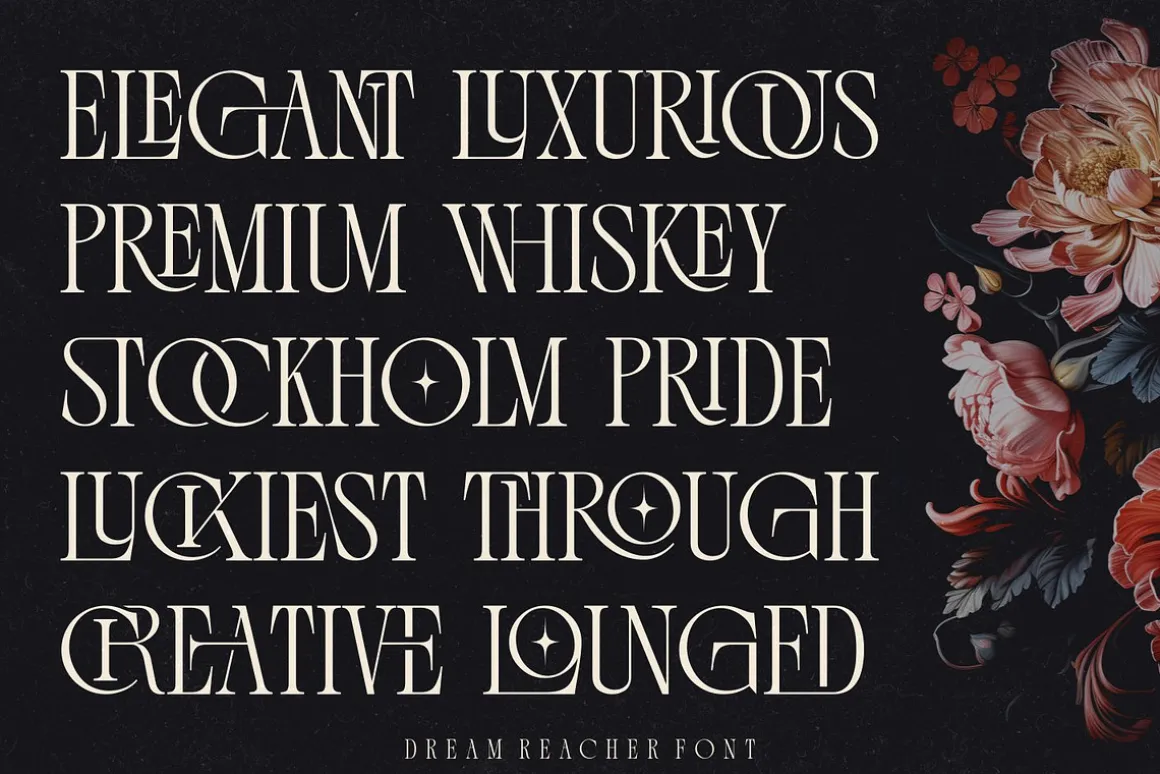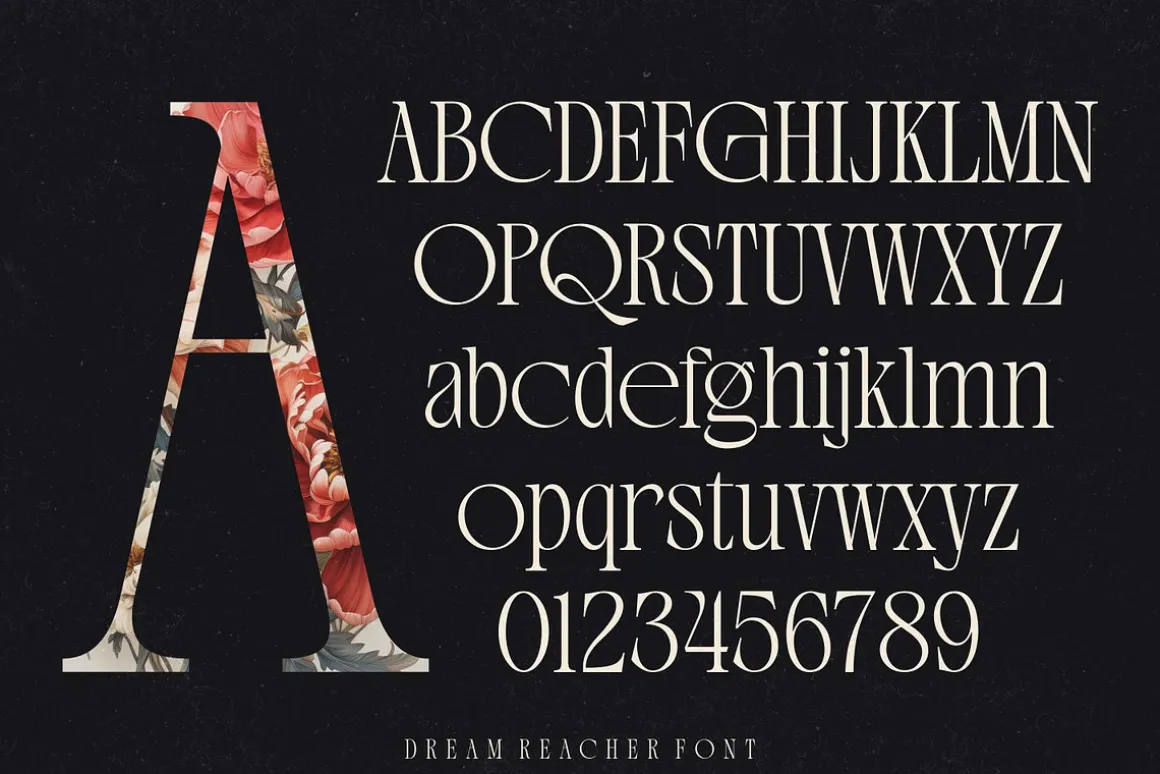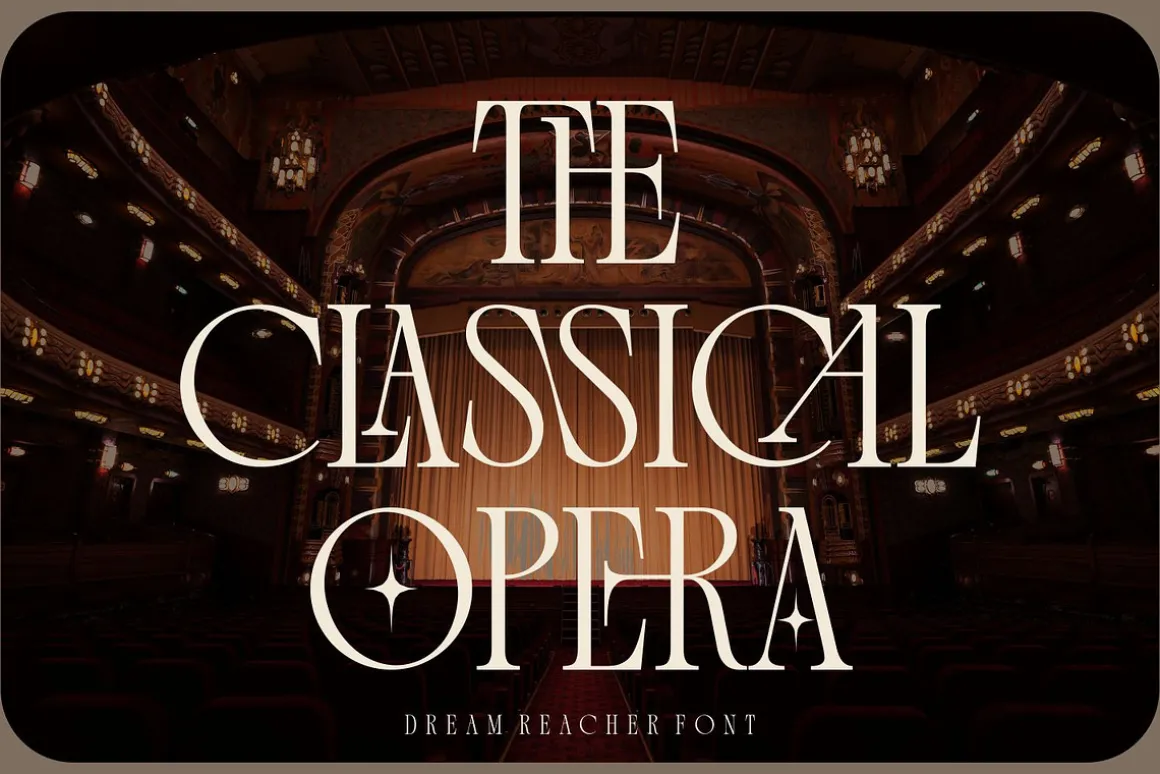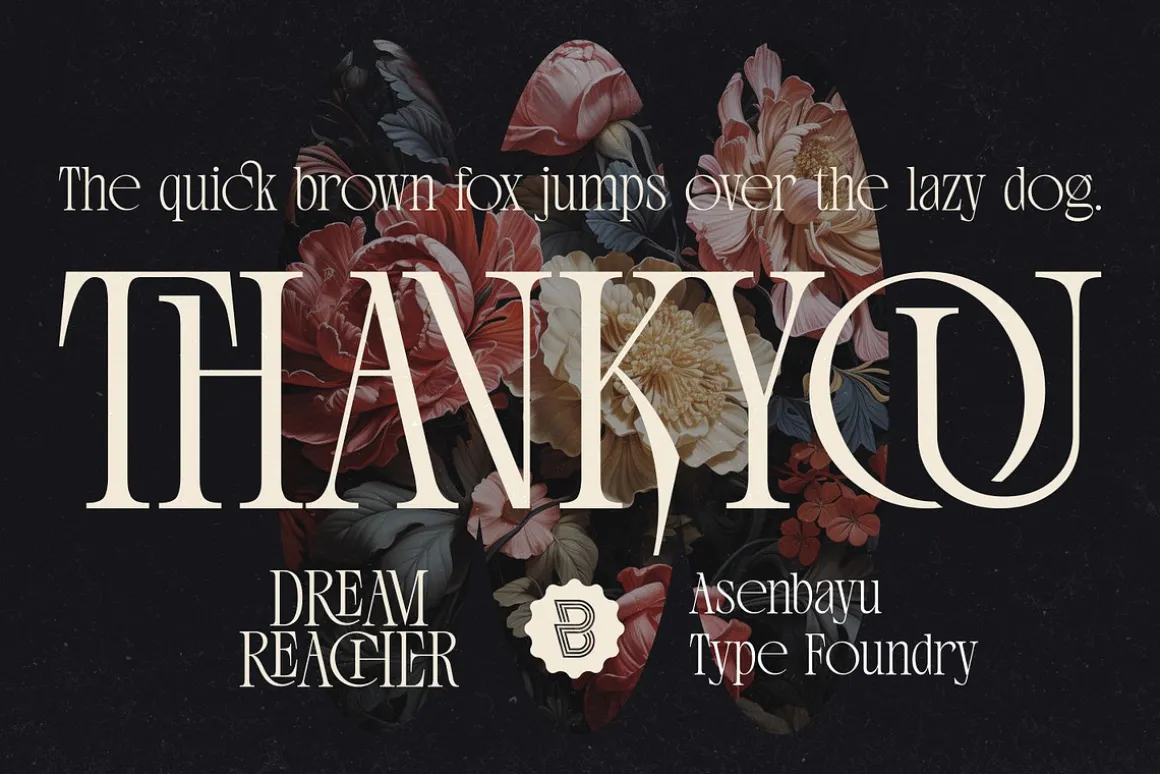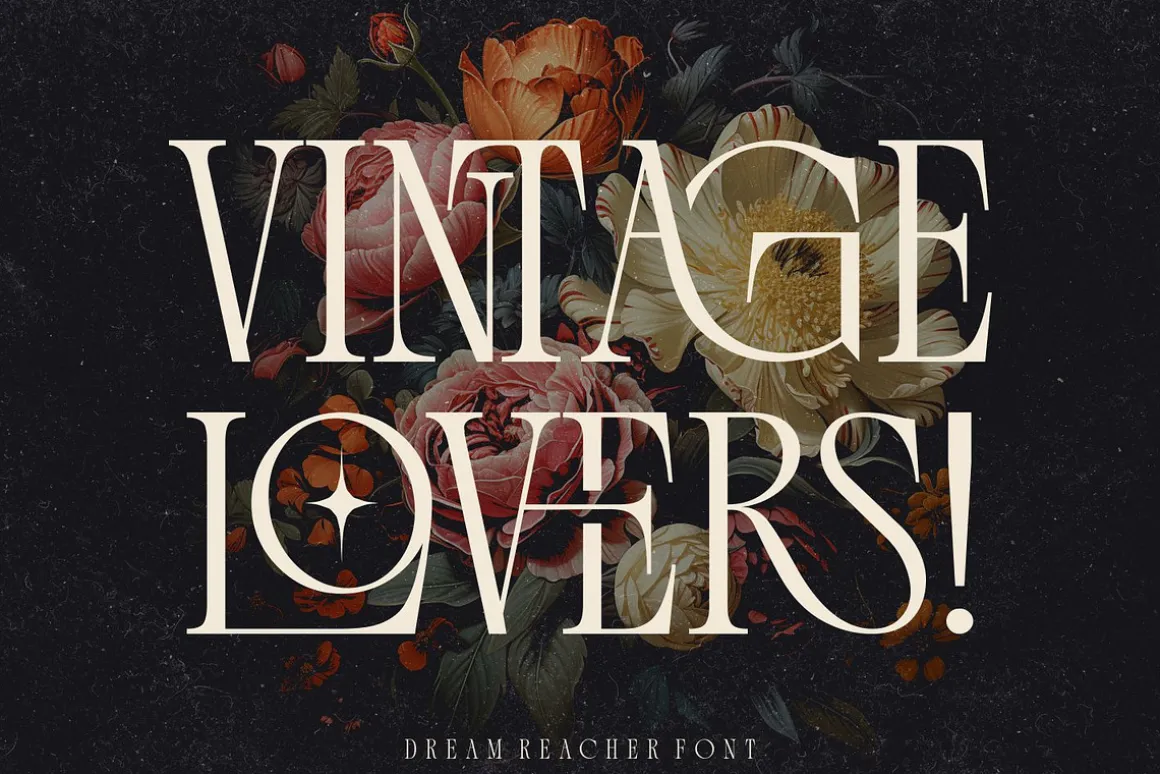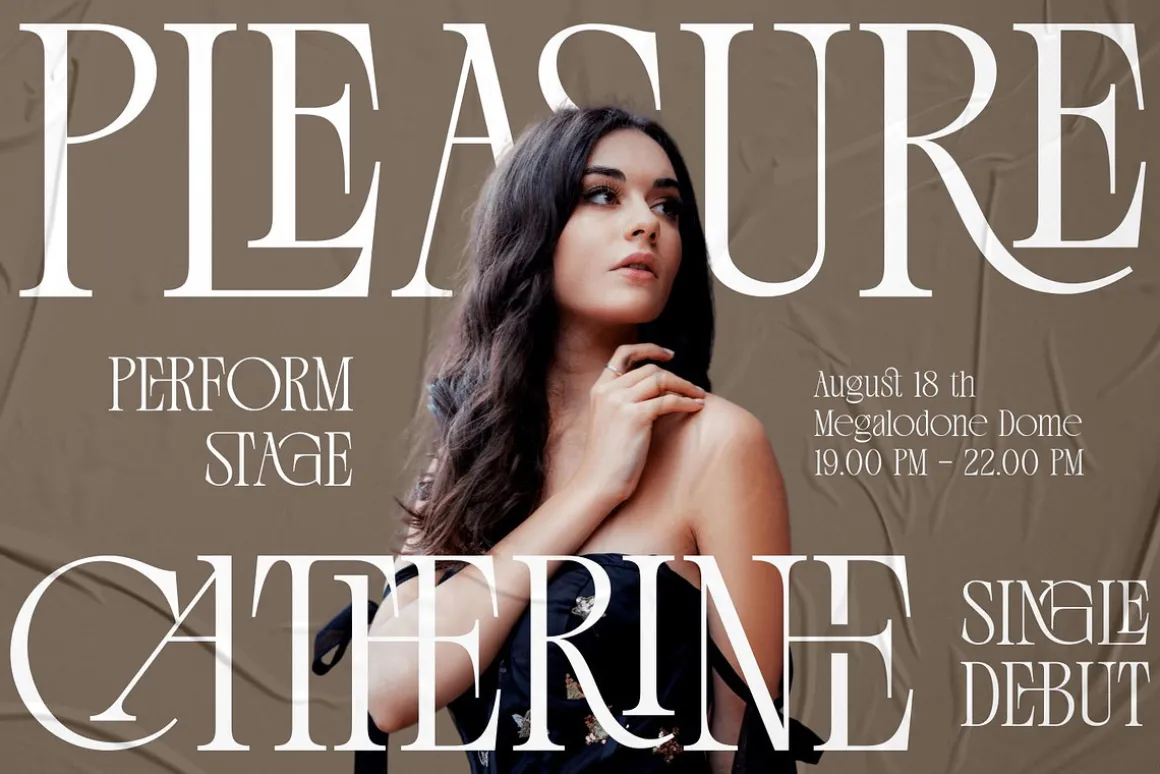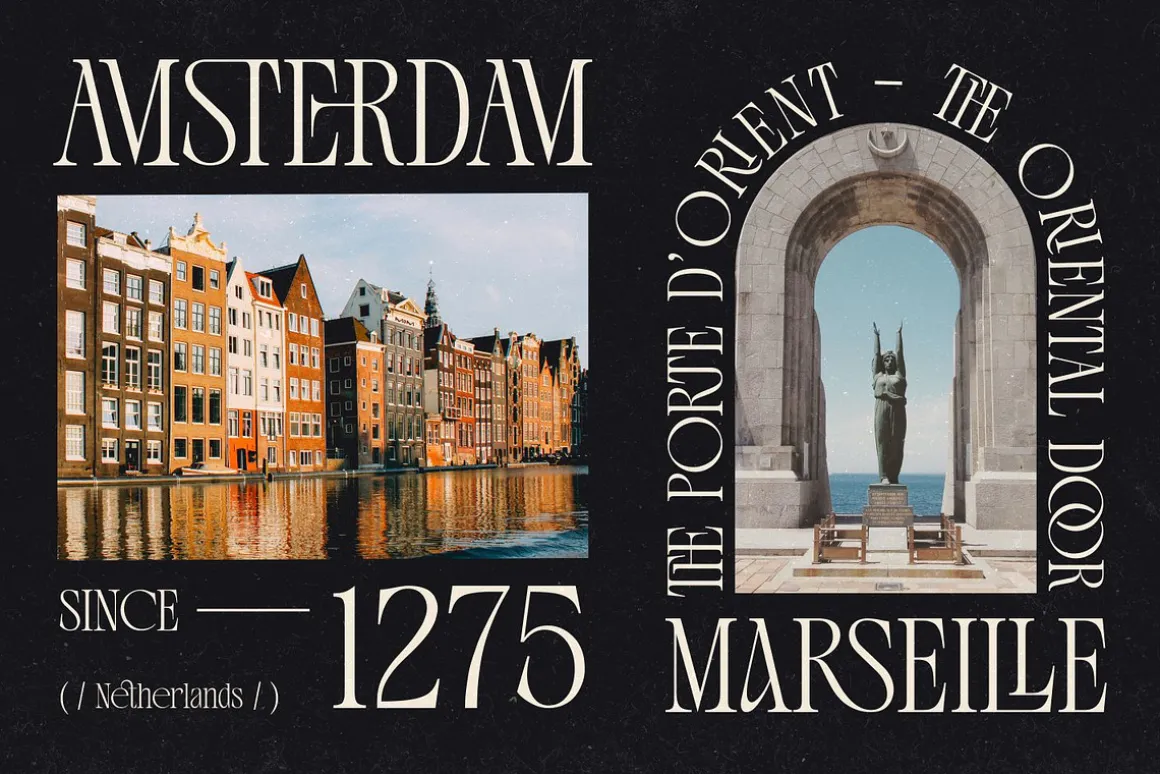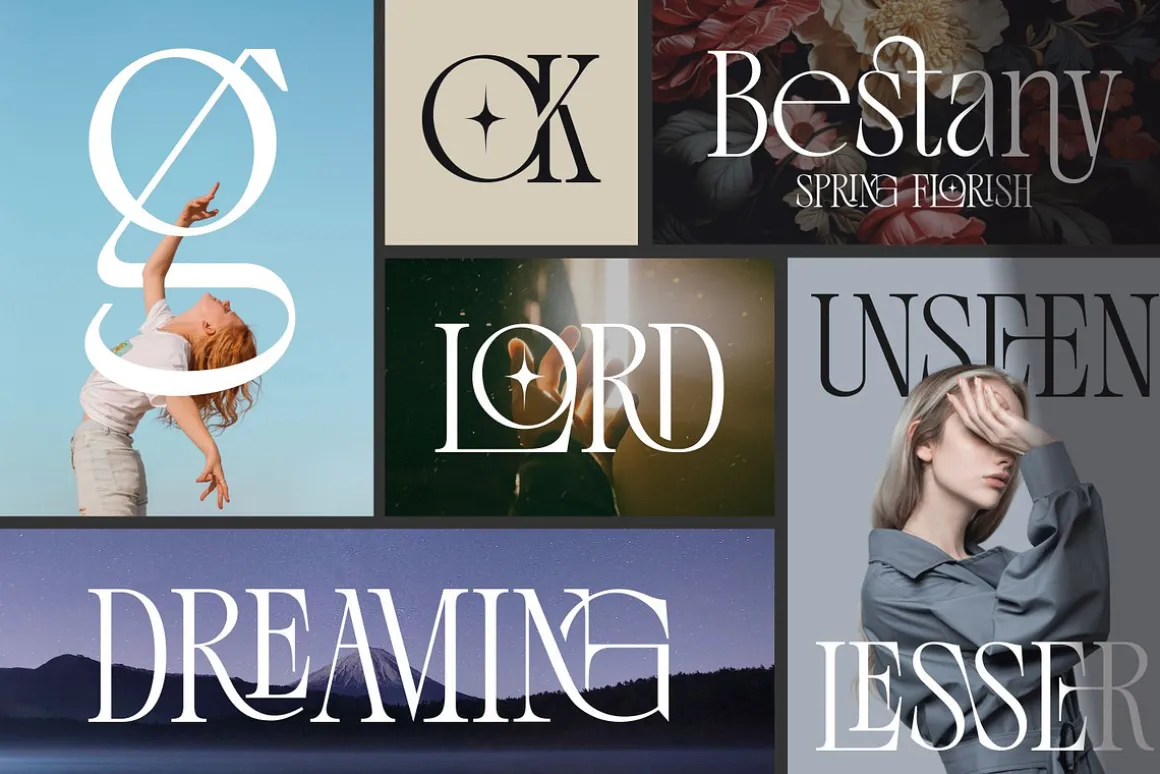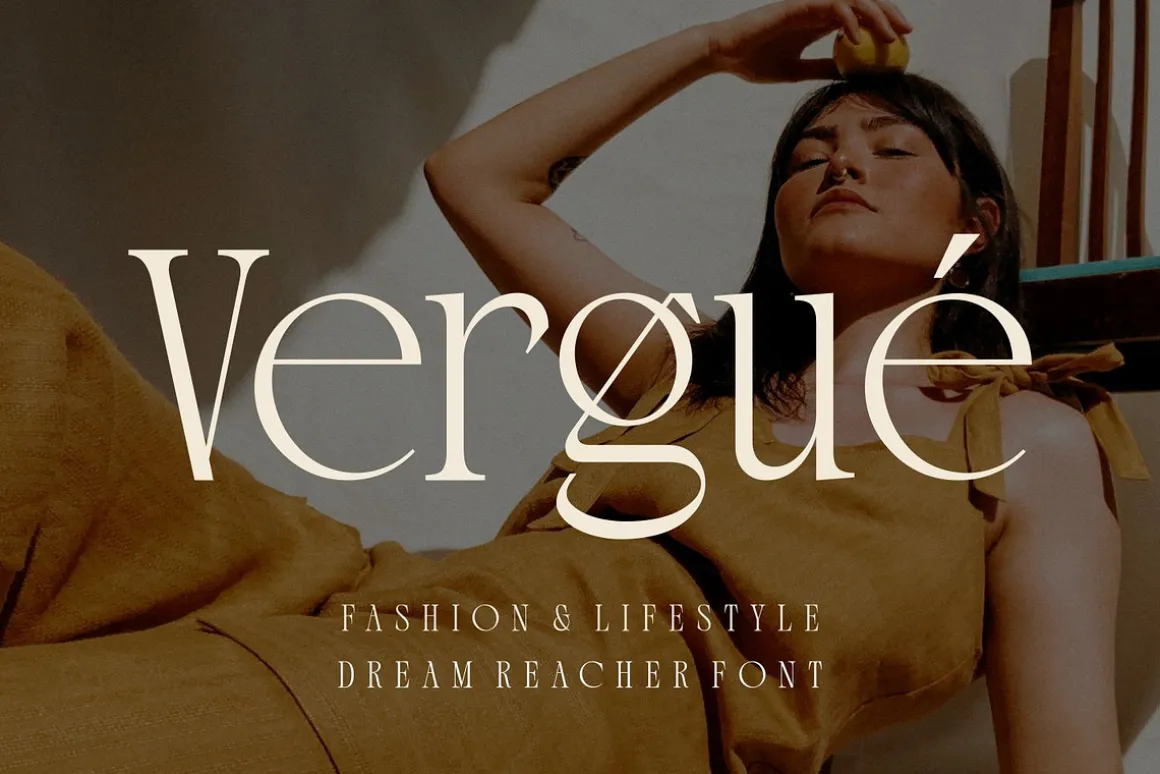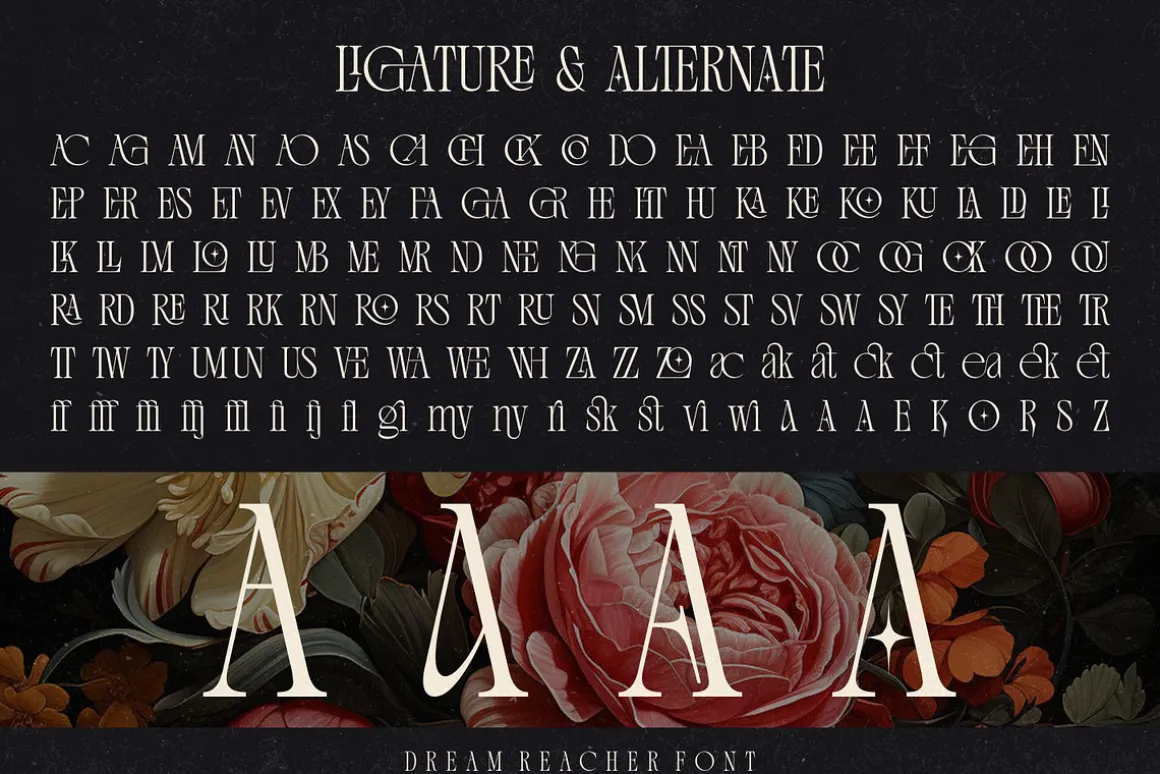
Dream Reacher is a creative stylish ligature serif font. Each letter is beautifully crafted which has an elegant look that attracts a tall, minimalist and slender shape. Dream Reacher font is a typeface that combines the elegance of a serif with a unique and decorative binding, creating a more harmonious and visually appealing look. This font has alternate and ligature features, perfect for using it in creative and artistic designs, such as logos, branding, headlines, titles, invitations, posters and more.